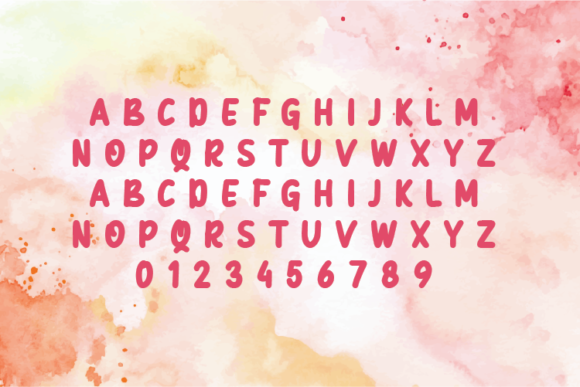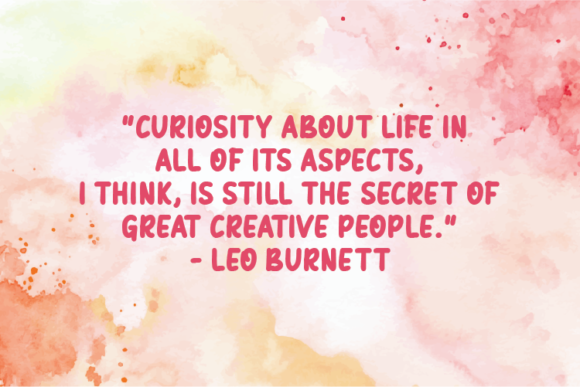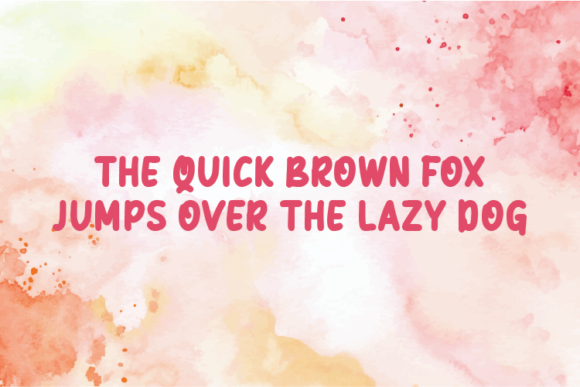
Introducing Flowering Font: A Unique and Natural Handwritten Style
Are you tired of using the same old fonts for your designs? Look no further than Flowering Font, a beautiful and natural handwritten font that’s sure to add a touch of elegance and whimsy to your projects. What sets Flowering Font apart is its unique approach to character design, where no single node in each character’s indentation has been altered. This attention to detail results in a font that’s not only visually appealing but also refreshingly distinct.
The Characteristics of Flowering Font
Flowering Font is a true gem in the world of typography. Its natural, handwritten style is perfect for a wide range of design applications, from quotes and notes to tees and product design. The font’s unique feature is its unaltered character indentation, which gives it a charming, organic feel that’s hard to replicate with other fonts. Whether you’re a designer, crafter, or simply someone who appreciates beautiful typography, Flowering Font is sure to captivate.
What Makes Flowering Font So Special?
So, what makes Flowering Font so special? For starters, its natural, handwritten style is incredibly versatile and can be used in a variety of design contexts. The font’s unique character indentation also adds a touch of personality to each letter, making it perfect for designs that require a bit of flair. Additionally, Flowering Font is highly legible, making it suitable for both short and long-form text.
Flowering Font is a dream come true for designers and crafters who are looking for a unique and beautiful font to add to their arsenal. Whether you’re creating custom apparel, designing stationery, or crafting handmade cards, Flowering Font is the perfect choice. Its natural, handwritten style and unique character indentation make it an excellent addition to any design project.
Ideas for Using Flowering Font
So, how can you use Flowering Font in your designs? Here are a few ideas to get you started:
- Custom apparel: Add a touch of elegance to your t-shirt designs, hoodies, and other apparel with Flowering Font.
- Stationery: Use Flowering Font to create beautiful stationery, including journals, notebooks, and greeting cards.
- Product design: Add a personal touch to your product designs, including mugs, phone cases, and more.
- Quotes and notes: Use Flowering Font to create inspiring quotes, notes, and other typographic designs.
Tips for Getting the Most Out of Flowering Font
To get the most out of Flowering Font, here are a few tips to keep in mind:
- Experiment with different colors: Flowering Font looks great in a variety of colors, so don’t be afraid to experiment and find the perfect hue for your design.
- Play with font sizes: Flowering Font is highly legible, even at small font sizes, so don’t be afraid to experiment with different sizes to add visual interest to your design.
- Combine with other fonts: Flowering Font pairs well with a variety of other fonts, so consider combining it with other styles to create a unique and eye-catching design.
In conclusion, Flowering Font is a beautiful and unique handwritten font that’s perfect for designers and crafters who are looking for a natural, elegant style. Its unaltered character indentation and highly legible design make it an excellent choice for a wide range of design applications. Whether you’re creating custom apparel, designing stationery, or crafting handmade cards, Flowering Font is sure to add a touch of whimsy and personality to your projects.